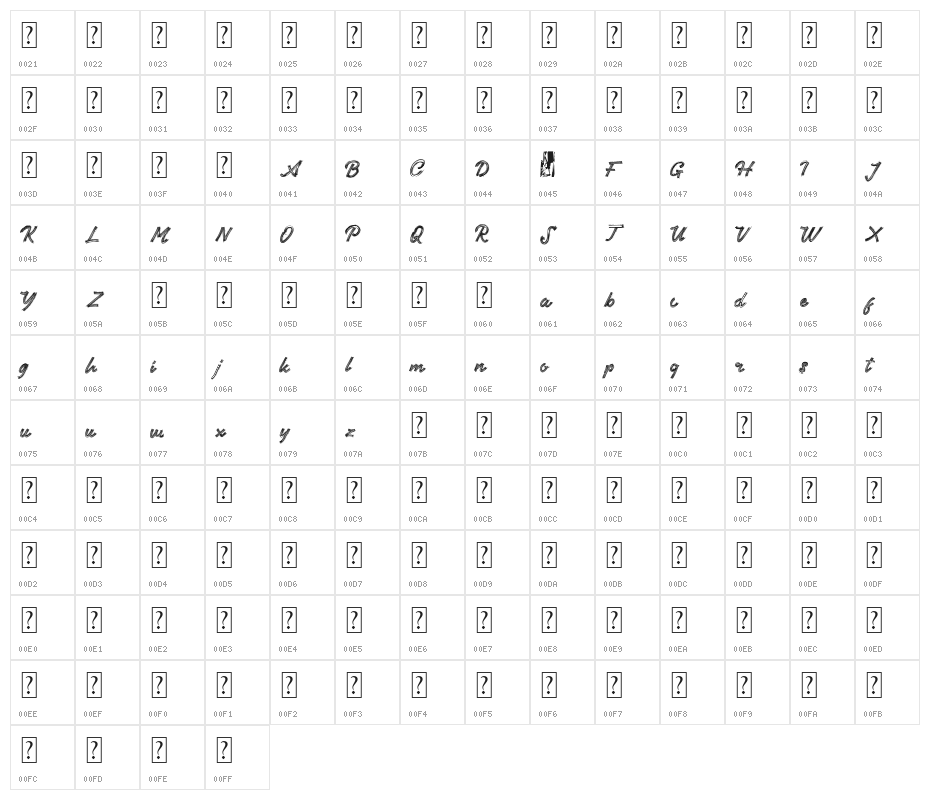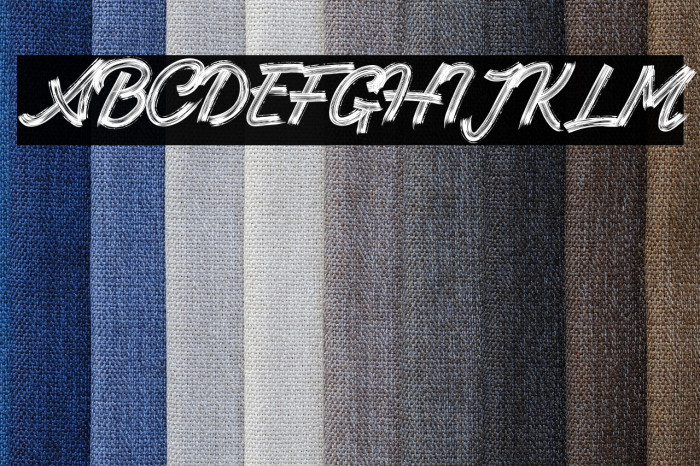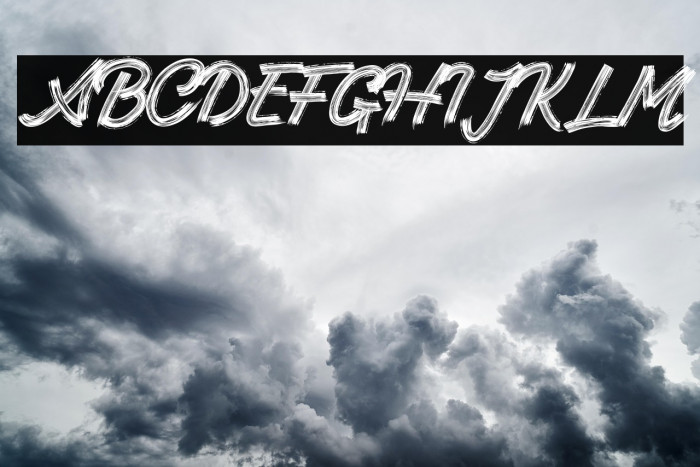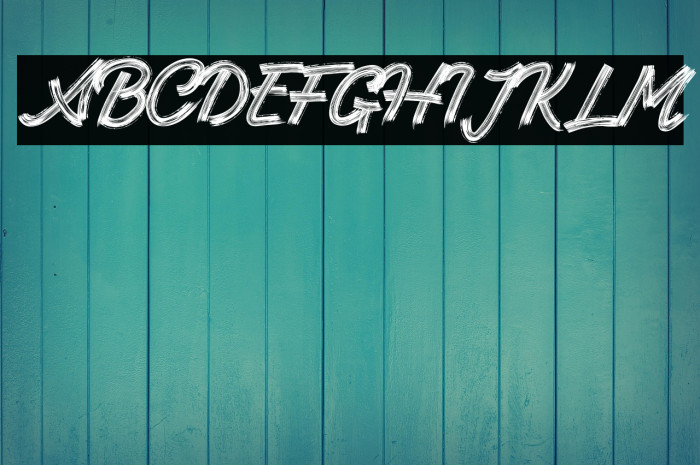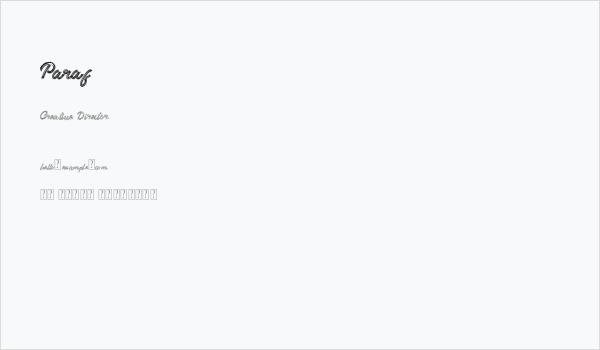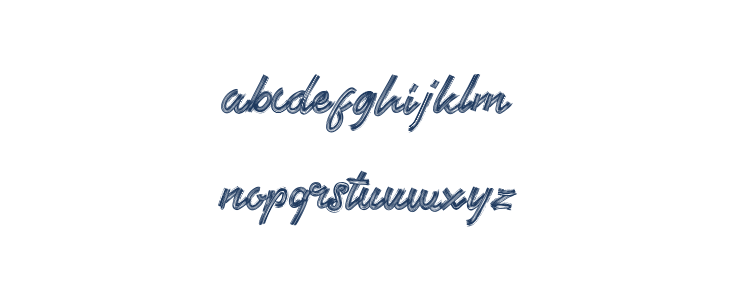
Paraf Font
Paraf Description
This font features a dynamic and energetic script style, characterized by its bold and expressive strokes. The letters are interconnected, creating a sense of flow and movement. The uppercase letters are particularly striking, with exaggerated flourishes and a sense of rhythm that makes each character stand out. The lowercase letters maintain the same fluidity, offering a harmonious balance between elegance and readability. The font's texture gives it a hand-drawn appearance, adding a personal touch to any design. It is well-suited for projects that require a touch of sophistication and creativity, such as invitations, branding, and artistic posters.
| Use Case | Logos, Headlines, Artistic Posters |
| Proposed Projects | Ideal for invitations, branding, artistic posters, and any design needing a sophisticated, creative touch. |